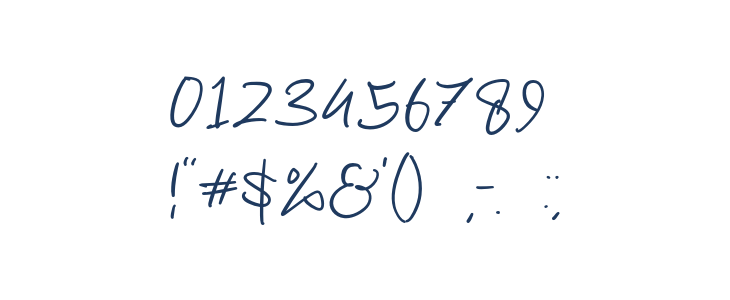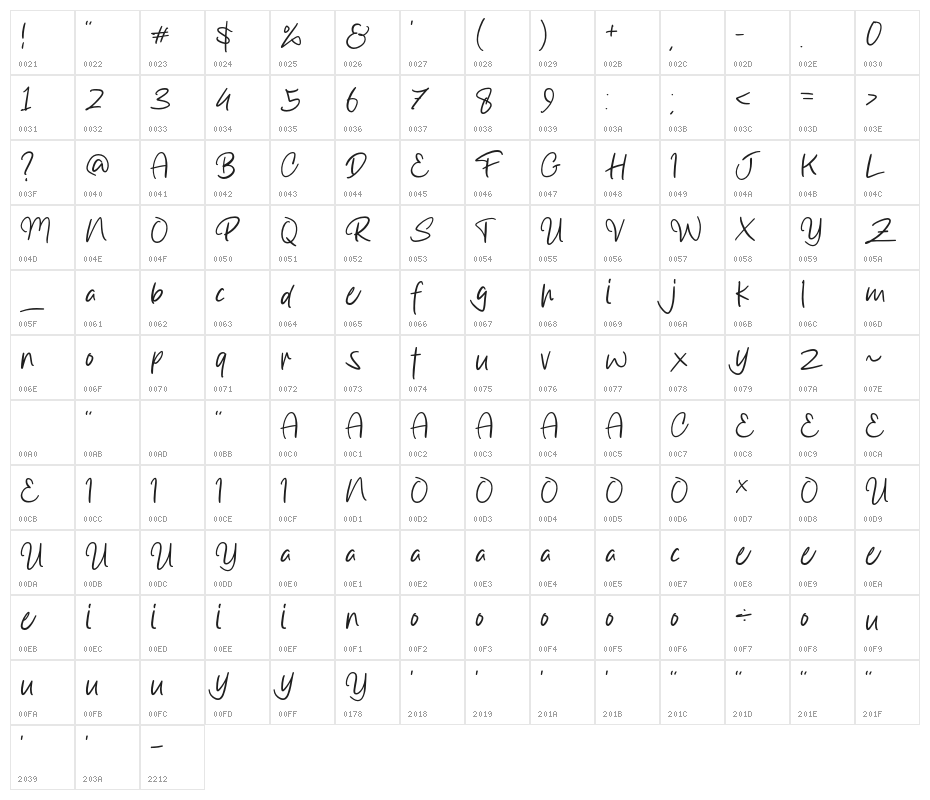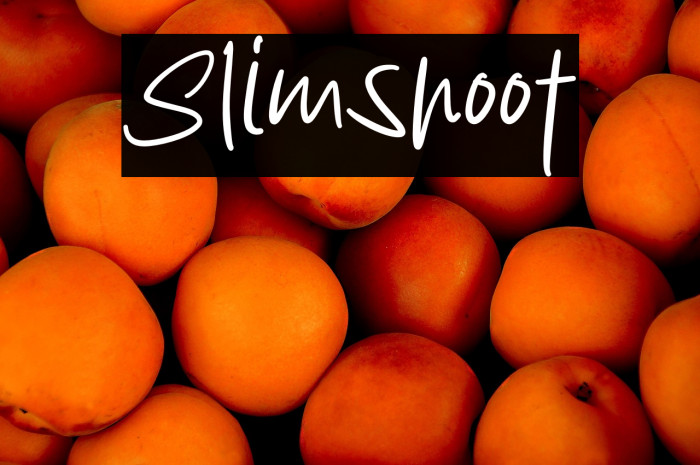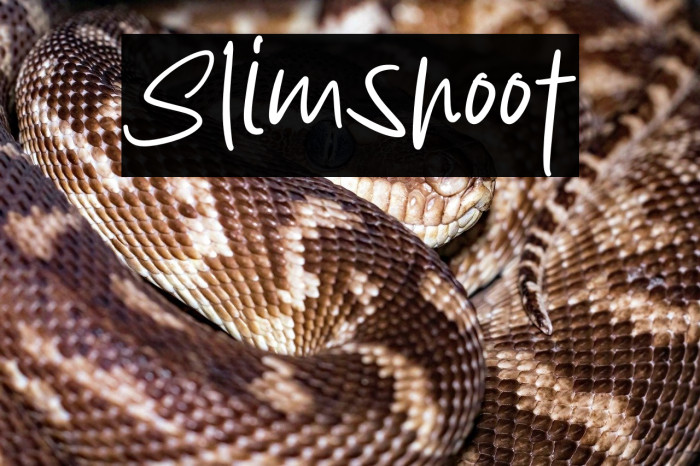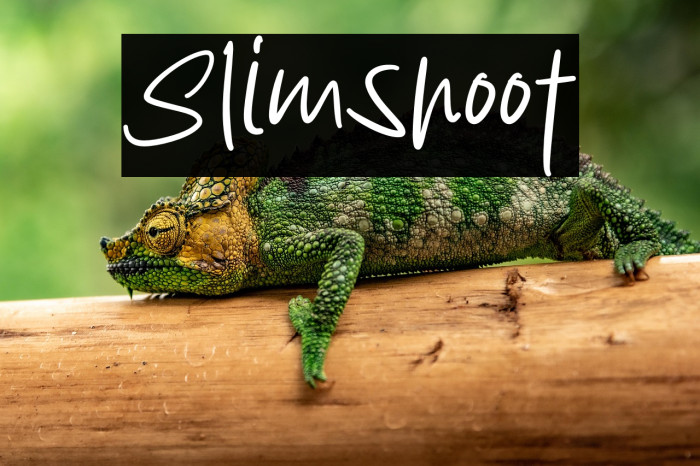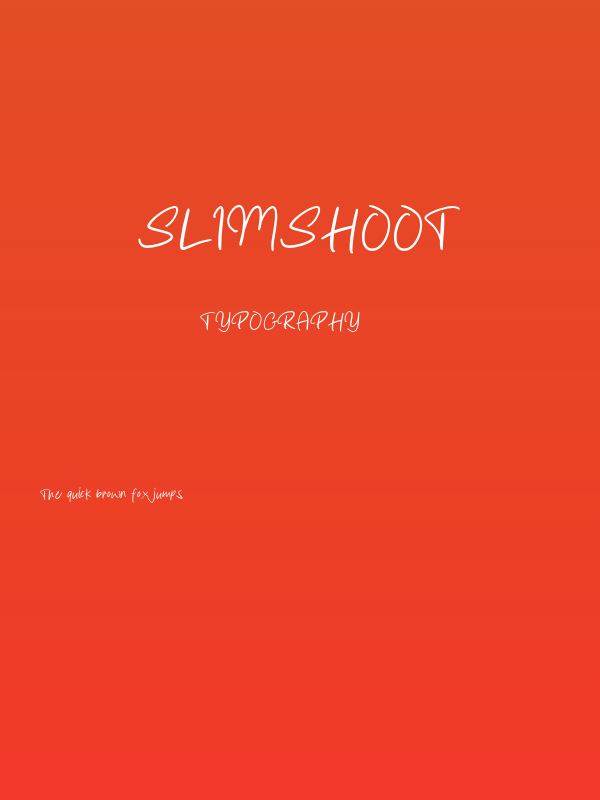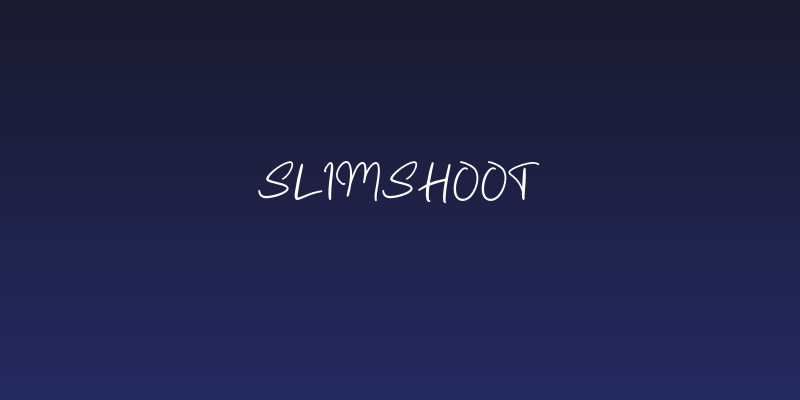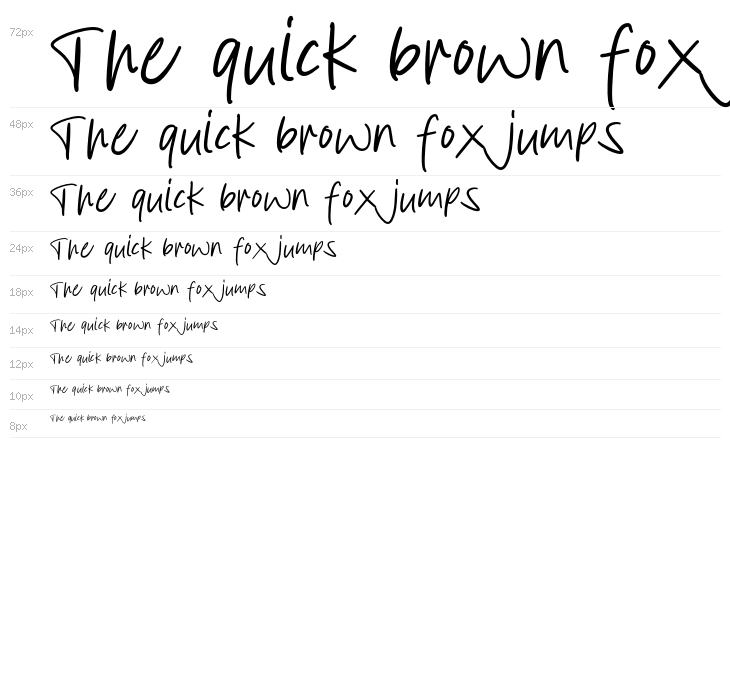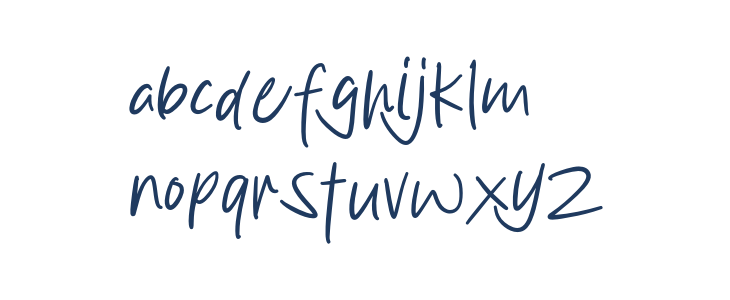
Slimshoot Font
Slimshoot Description
This font exudes a casual and lively handwritten style, characterized by its fluid and dynamic strokes. The letters are slightly slanted, giving a sense of motion and spontaneity. The uppercase and lowercase letters maintain a consistent style, with rounded edges and varying stroke widths that add to its informal charm. The numerals and special characters are crafted with the same playful and energetic flair, making them easily readable yet visually engaging. This font's overall appearance is both approachable and stylish, suitable for projects that require a personal touch.
| Use Case | Logos, Headlines, Informal Text |
| Proposed Projects | Ideal for greeting cards, invitations, personal branding, and social media graphics. |